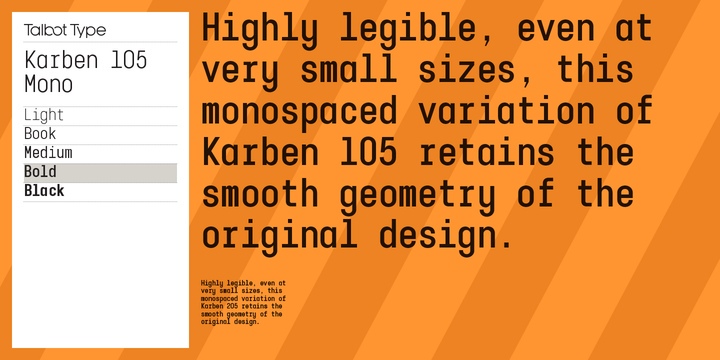
Karben 105 Mono Font
Karben 105 Mono Font is perfect for code editors, programming documentation, terminal applications, data tables, financial reports, technical manuals, software interfaces, digital displays, system logs, and cybersecurity dashboards.
What makes Karben 105 Mono Font exciting is its exceptional balance between technical precision and visual comfort, featuring perfectly aligned monospaced characters that enhance code readability while reducing eye strain during extended programming sessions. This professional typeface delivers superior clarity for complex data visualization and technical documentation.
Karben 105 Mono Font family includes light, regular, and bold weights with matching italic variations, plus extended character sets and programming ligatures, providing developers and technical writers with comprehensive typographic tools for professional documentation.
Karben 105 Mono Font represents the evolution of monospaced typography, combining traditional fixed-width functionality with contemporary design refinements. This versatile typeface ensures consistent character alignment essential for code formatting while maintaining the aesthetic quality demanded by modern development environments and technical interfaces.
Software developers worldwide prefer Karben 105 Mono Font Free Download for its outstanding performance in integrated development environments and text editors. The font's optimized spacing and carefully crafted letterforms reduce cognitive load while improving code comprehension and debugging efficiency across various programming languages.
The comprehensive glyph collection includes standard ASCII characters, extended Latin alphabets, mathematical symbols, and specialized programming ligatures that enhance code readability. Karben 105 Mono Font supports multiple coding languages and provides excellent Unicode coverage for international development projects.
Karben 105 Mono Font excels in both high-resolution displays and traditional print applications, maintaining crisp character definition across various screen densities and printing technologies. The font's advanced hinting ensures optimal rendering in terminal environments and modern code editors.
Technical writers and system administrators appreciate how Karben 105 Mono Font improves documentation clarity while maintaining professional appearance standards. Its consistent character width facilitates precise text alignment in tables, reports, and structured data presentations.
Whether you're developing software applications, creating technical documentation, or designing system interfaces, Karben 105 Mono Font provides the reliability and clarity essential for professional technical communications and programming environments.